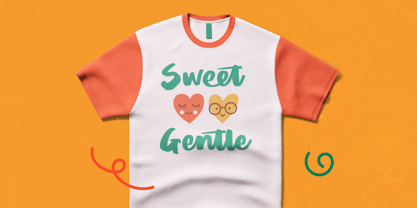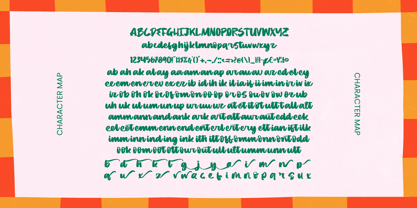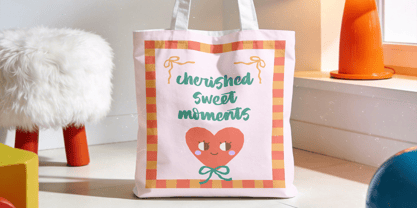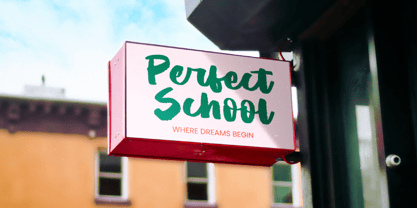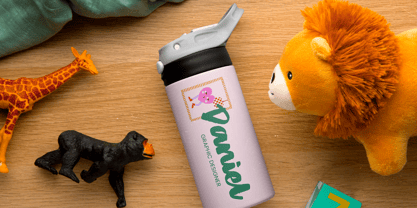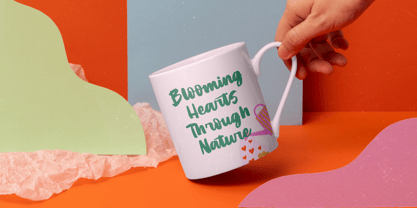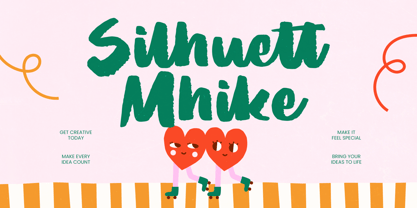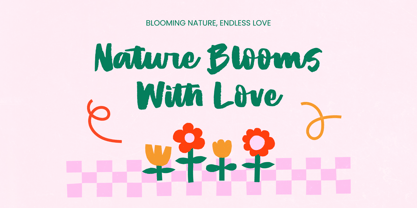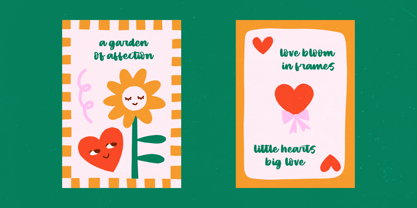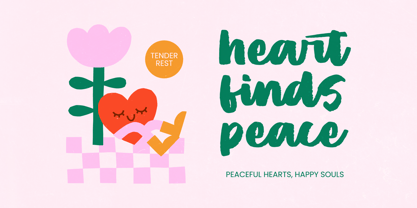
Silhuett Mhike
von Letterena Studios
Die Schriftfamilie Silhuett Mhike wurde von Heru Utama Putra entworfen und von Letterena Studios veröffentlicht. Silhuett Mhike enthält 2 Stile und Familienpaketoptionen. Mehr über diese Familie
Silhuett Mhike - Modern Brush Font
Elevate your creative projects with the raw, rhythmic energy of Silhuett Mhike - Modern Brush Font. This handcrafted aesthetic combines organic textures with a bold, contemporary structure, ensuring your message commands attention instantly. With its high-impact strokes and fluid motion, Silhuett Mhike - Modern Brush Font is the ultimate choice for designers seeking to infuse their work with a sense of authentic craftsmanship and modern flair.
Designer: Heru Utama Putra
Foundry: Letterena Studios